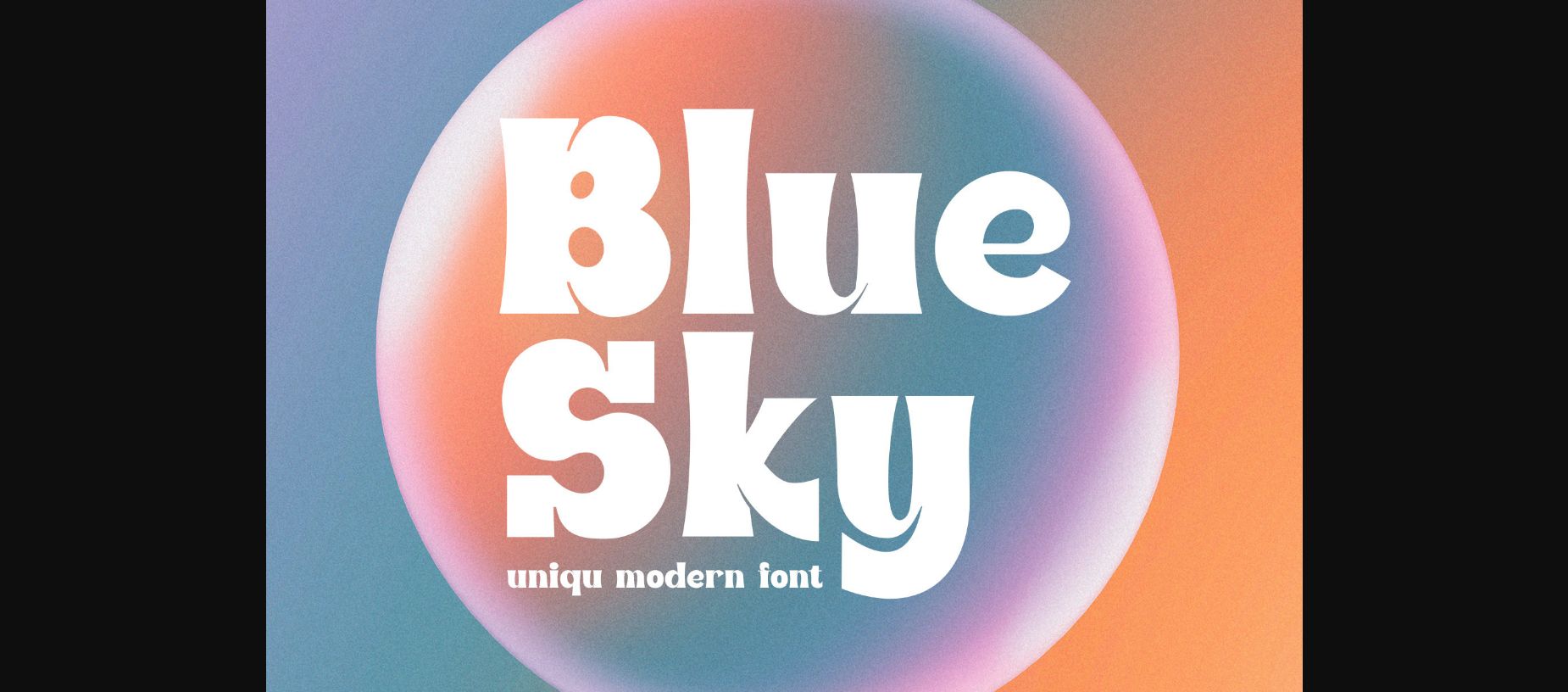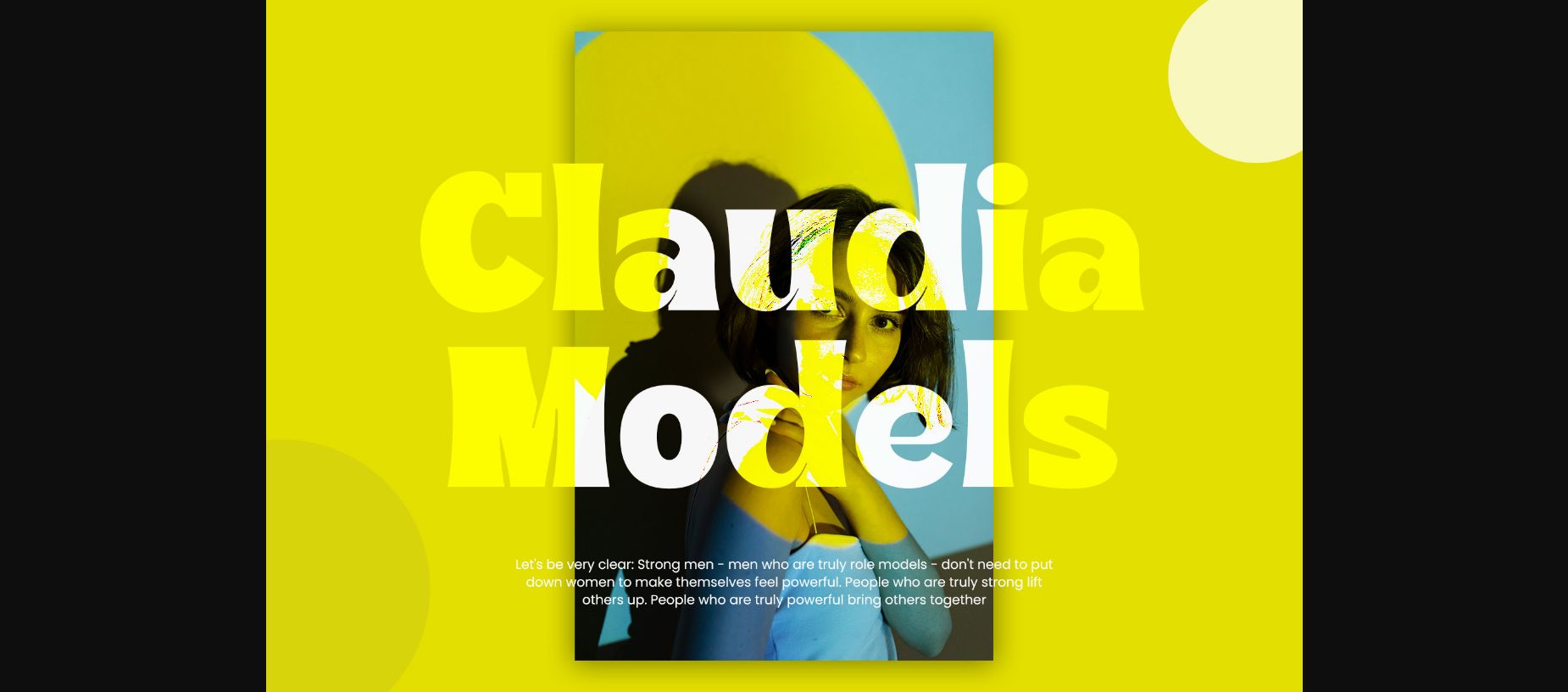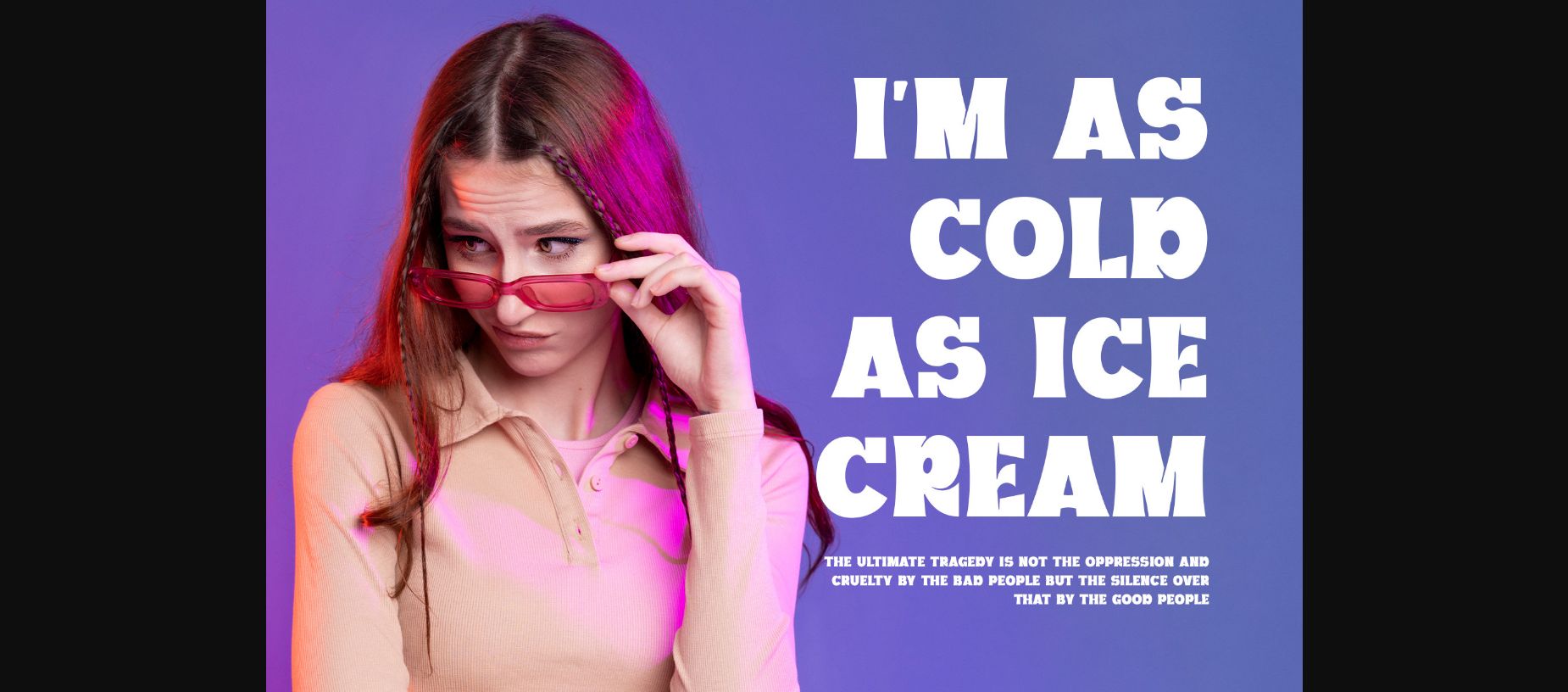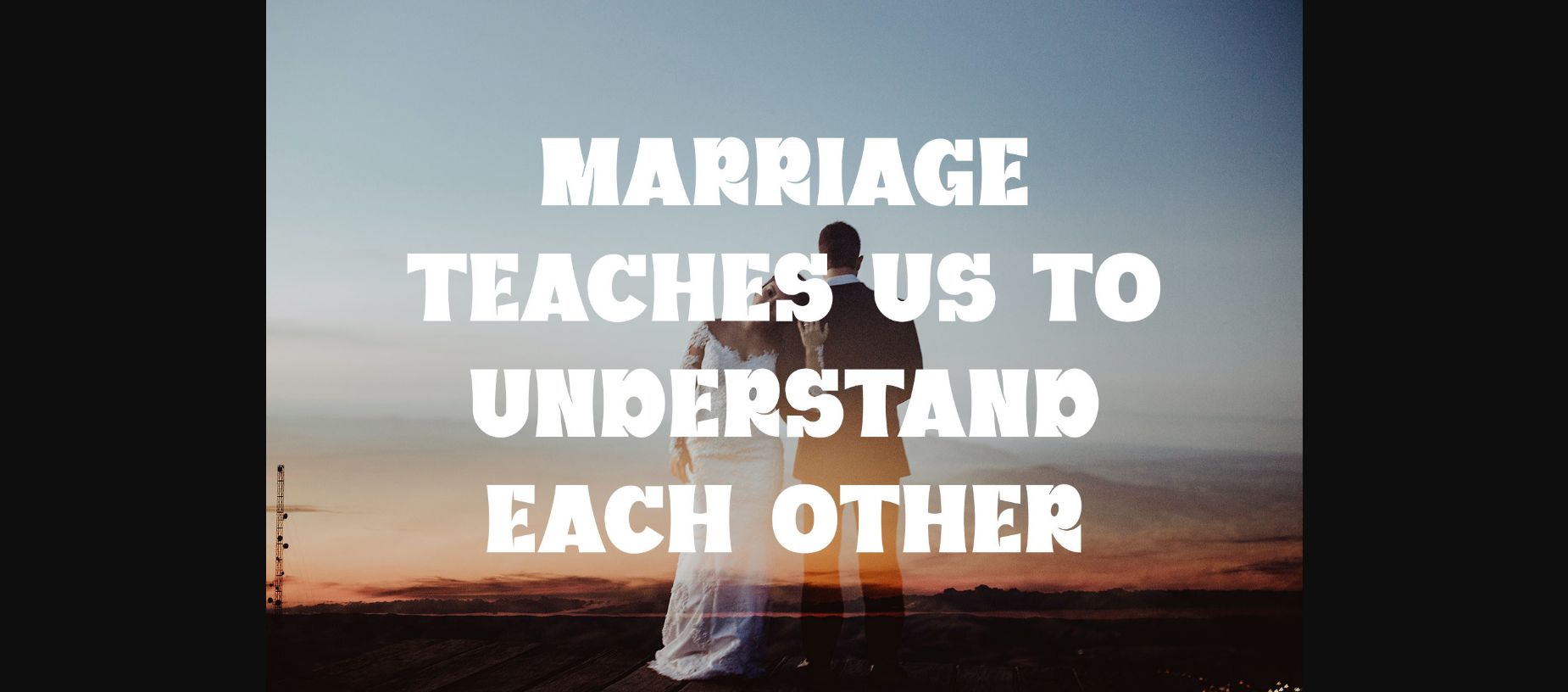
About Blue Sky Font
Blue Sky is a lively and bold display font that captures the spirit of adventure and optimism. With its playful curves and dynamic letterforms, this font adds a touch of fun to any project. Whether you’re designing posters, invitations, or branding materials, Blue Sky’s unique style will bring a burst of energy and creativity to your designs, just like a clear blue sky on a sunny day.